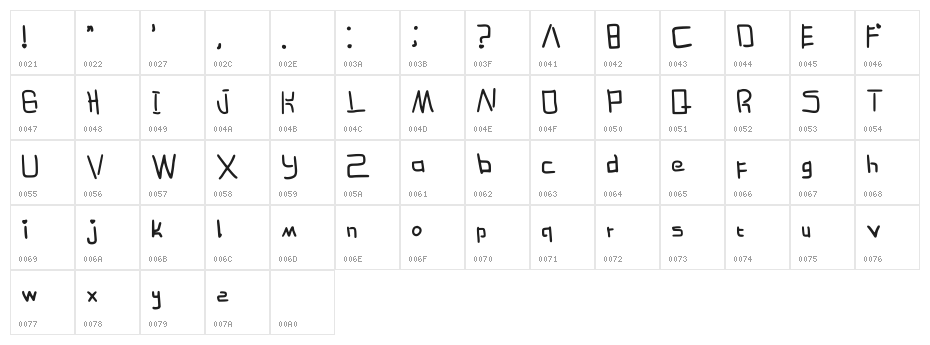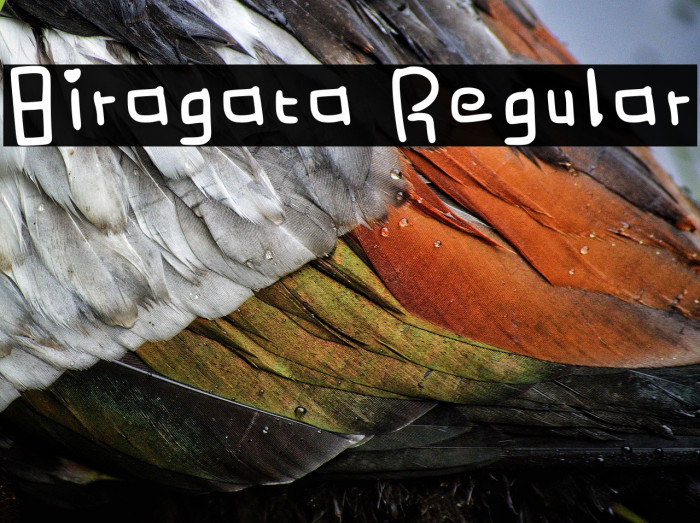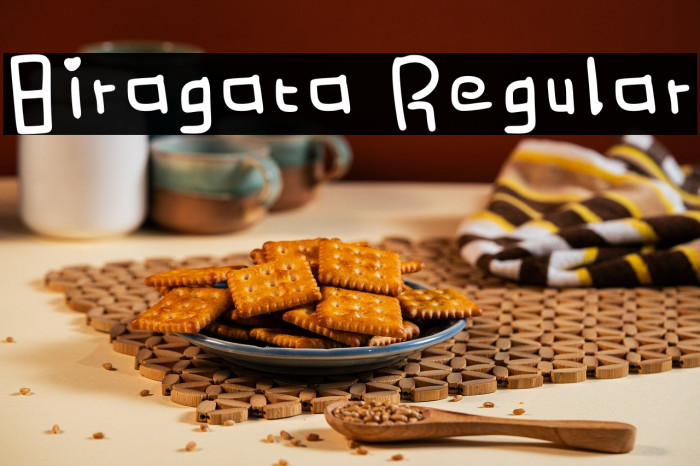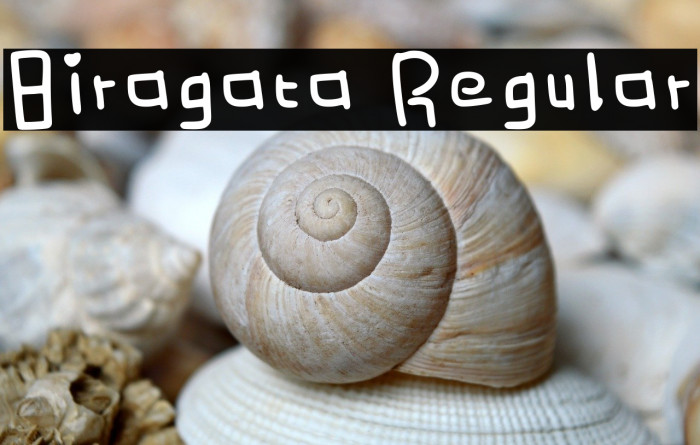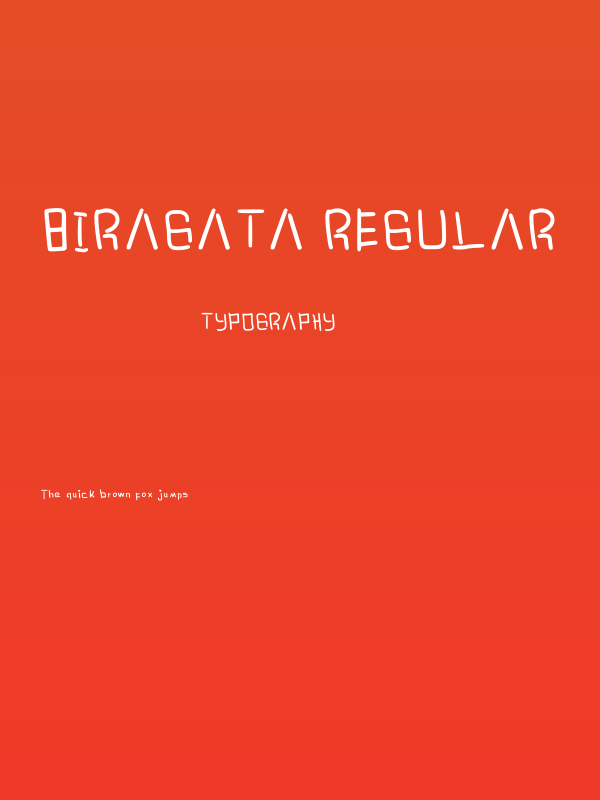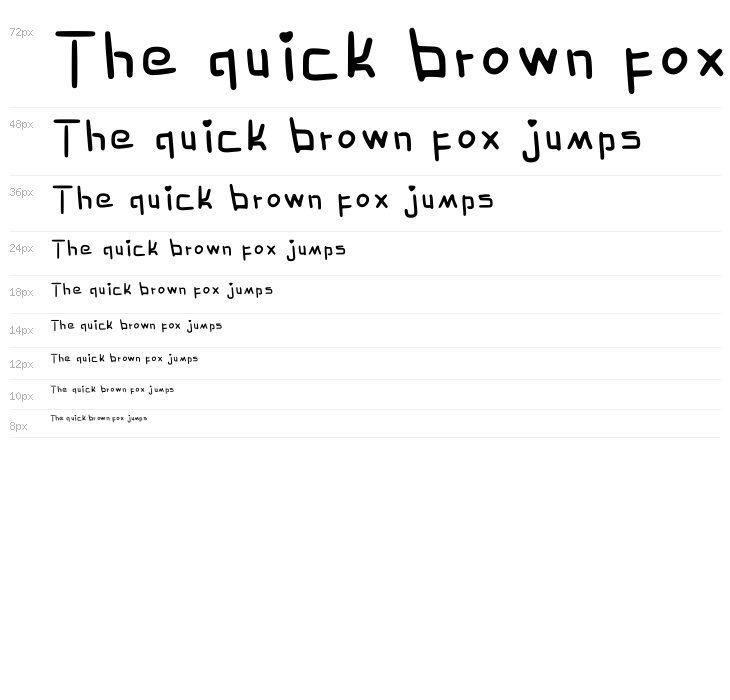
Biragata Regular Font
Biragata Regular Description
A playful and irregular handwritten font with a casual and quirky appearance, featuring uneven strokes and a unique character design.
| Overall Style | Casual and playful |
| Use Case | Headlines, informal text, creative projects. |
| Proposed Projects | Children's books, casual invitations, playful branding. |